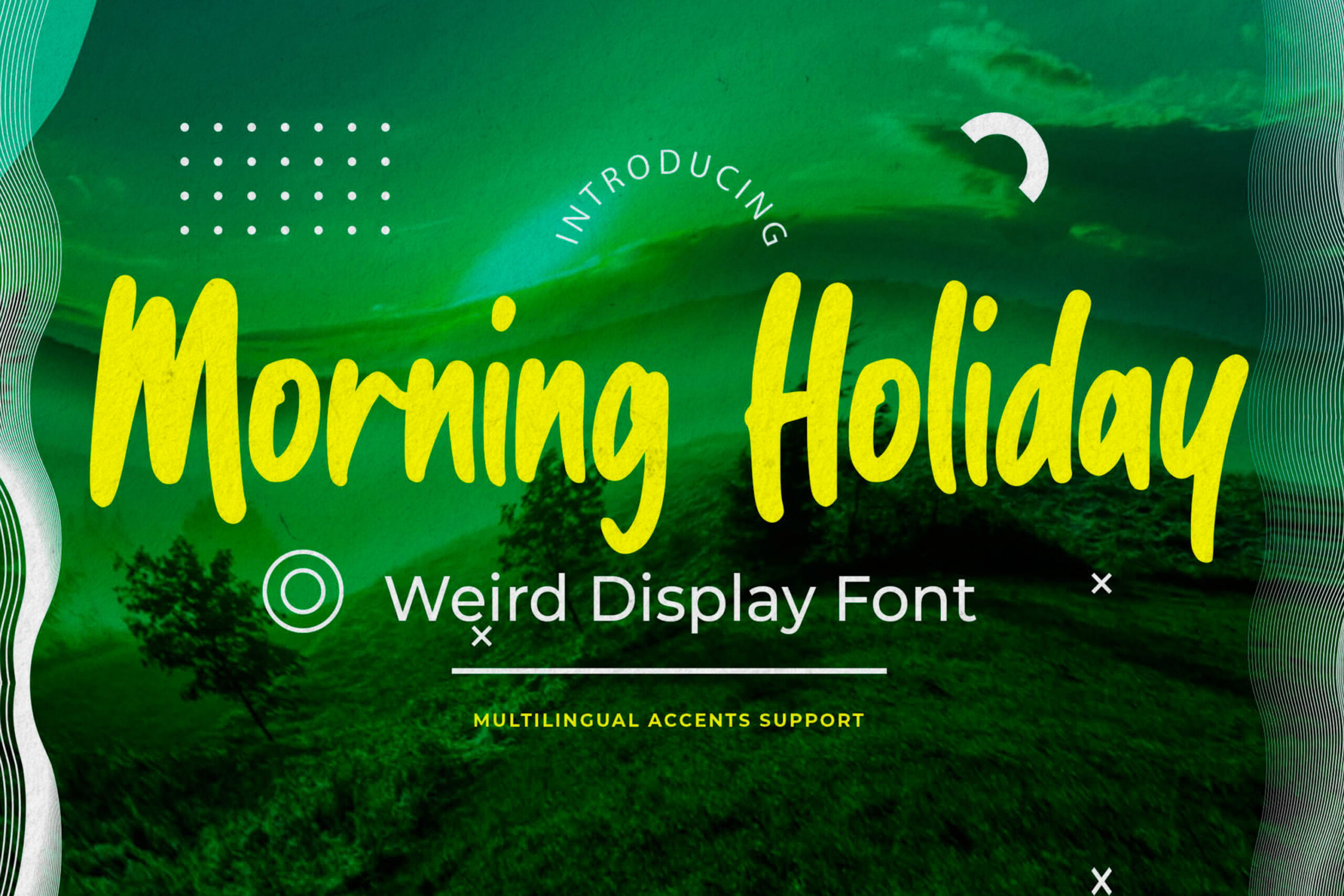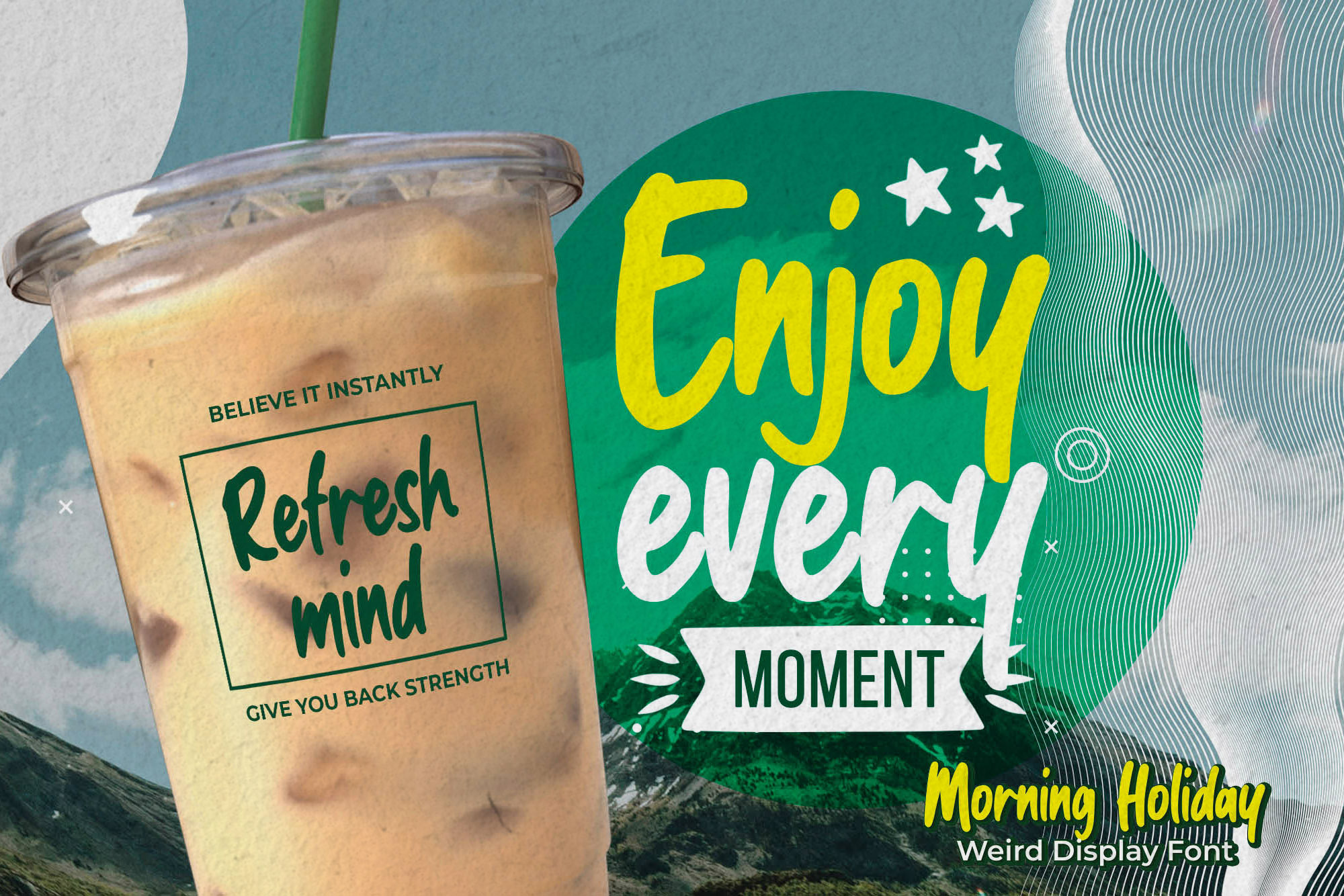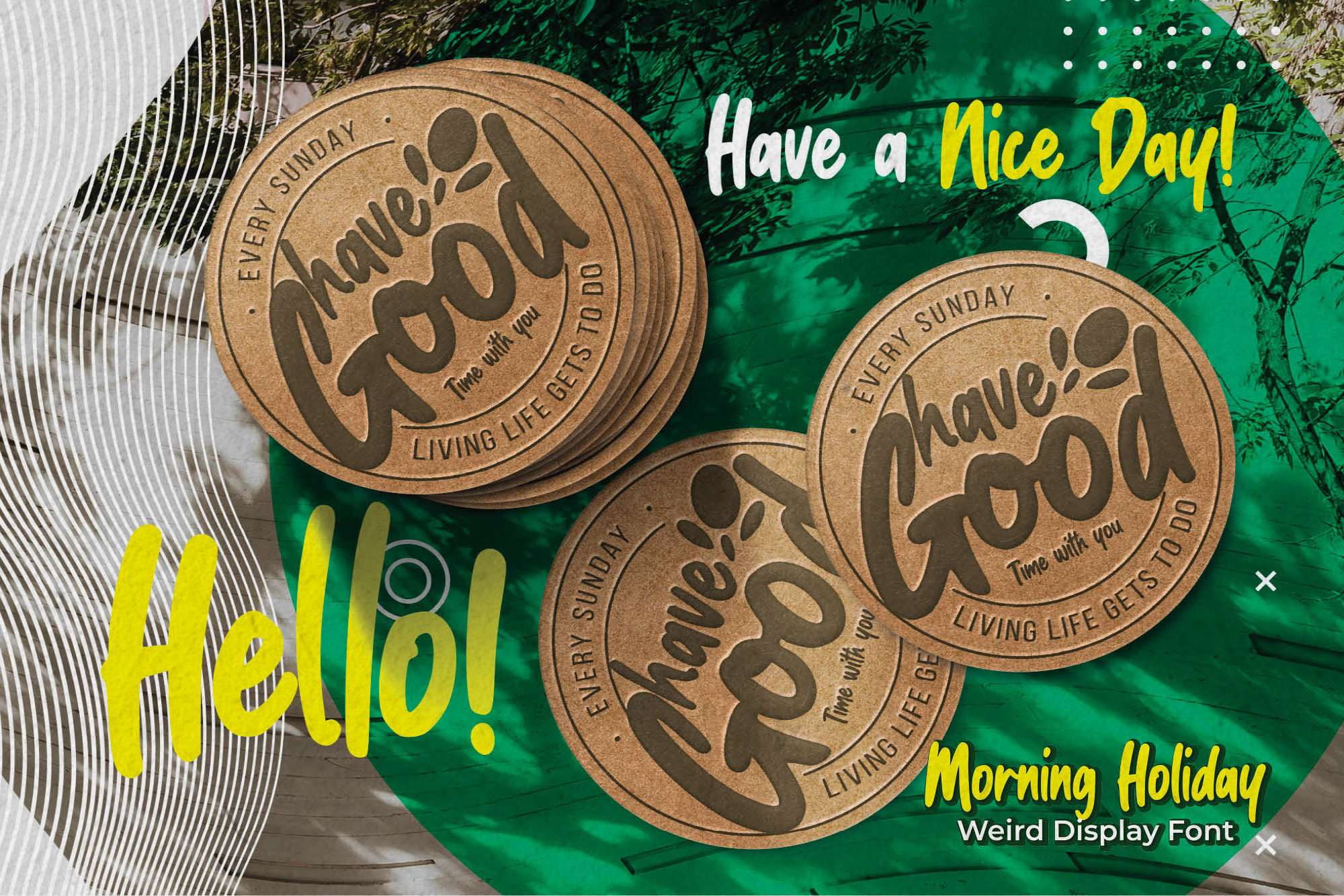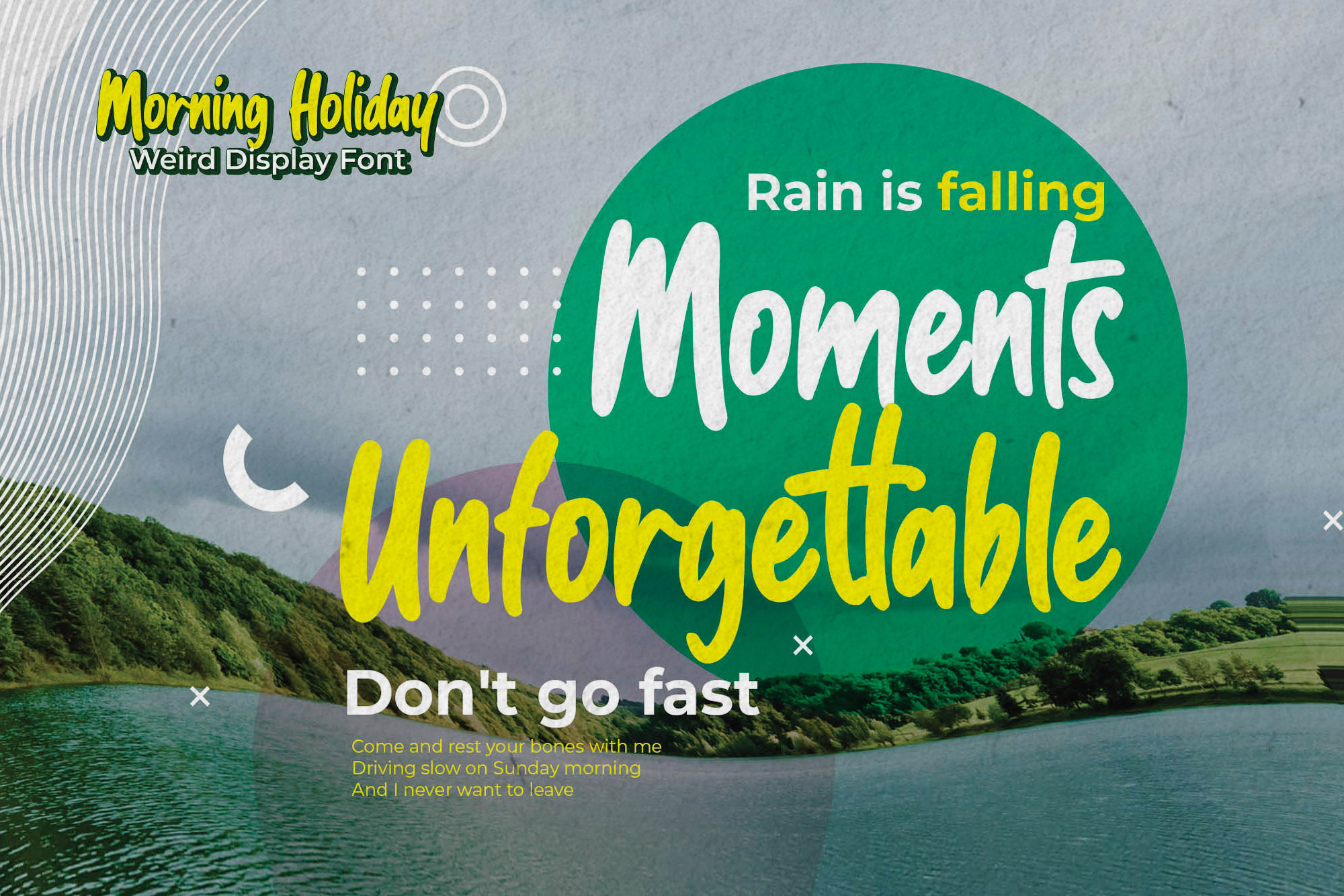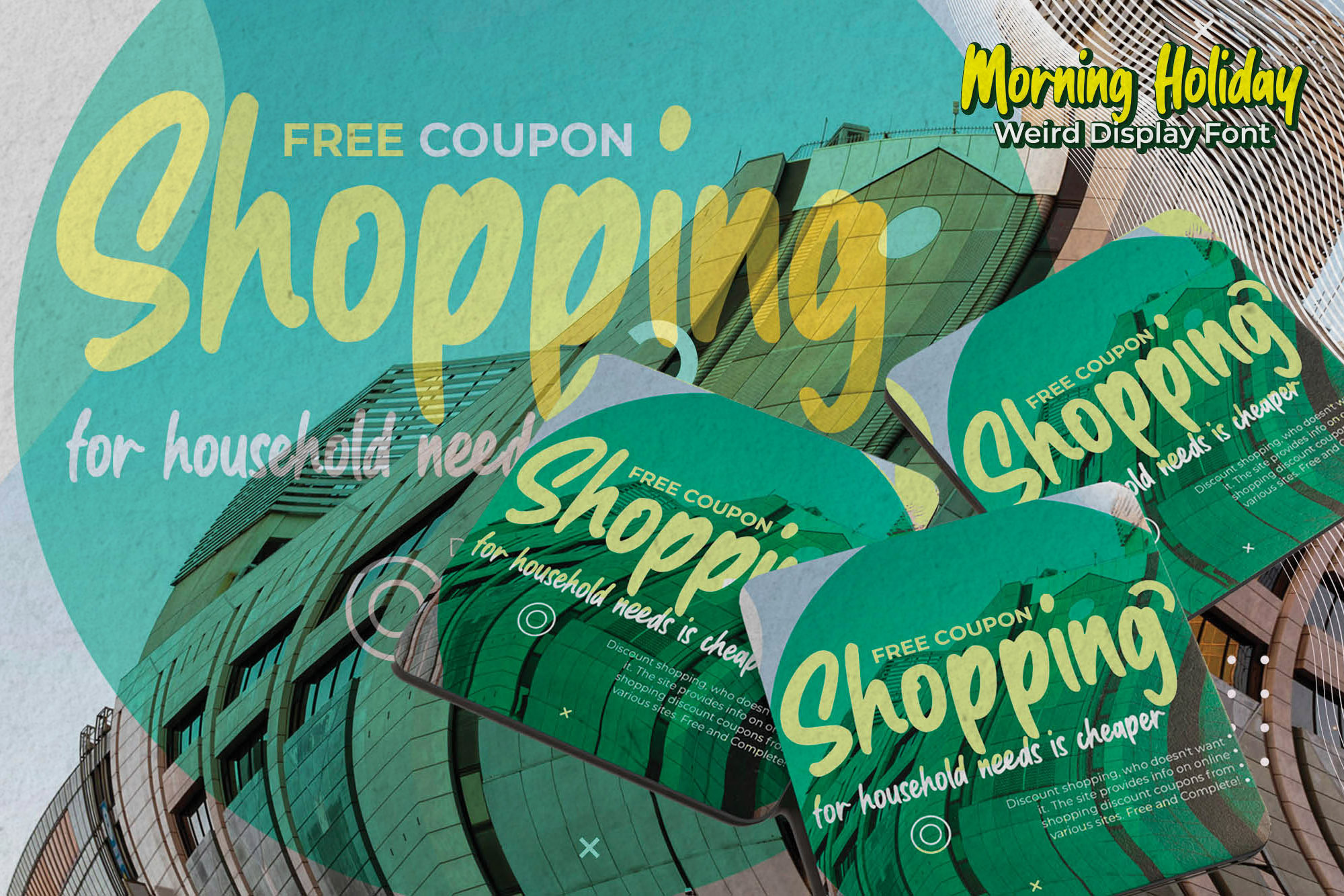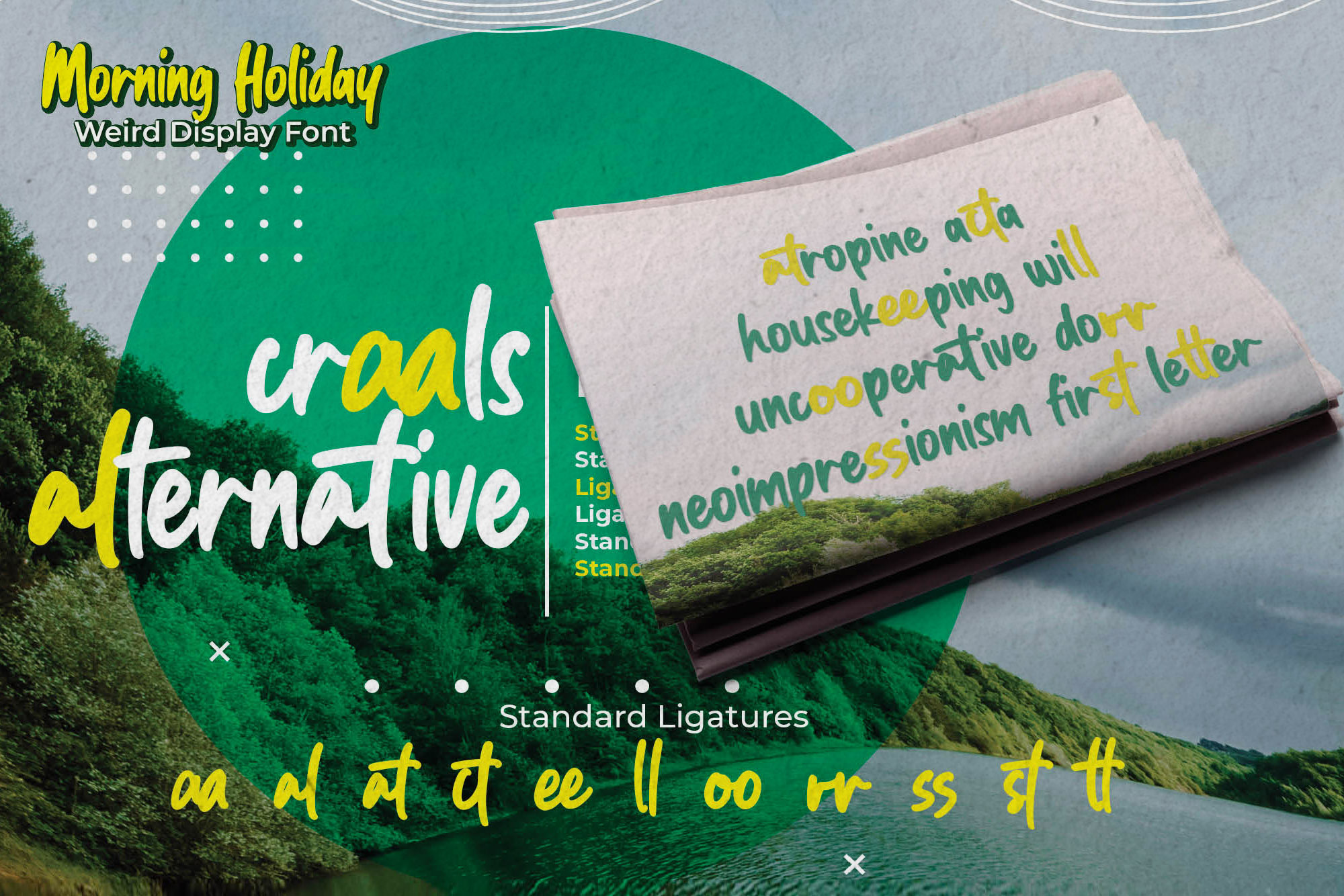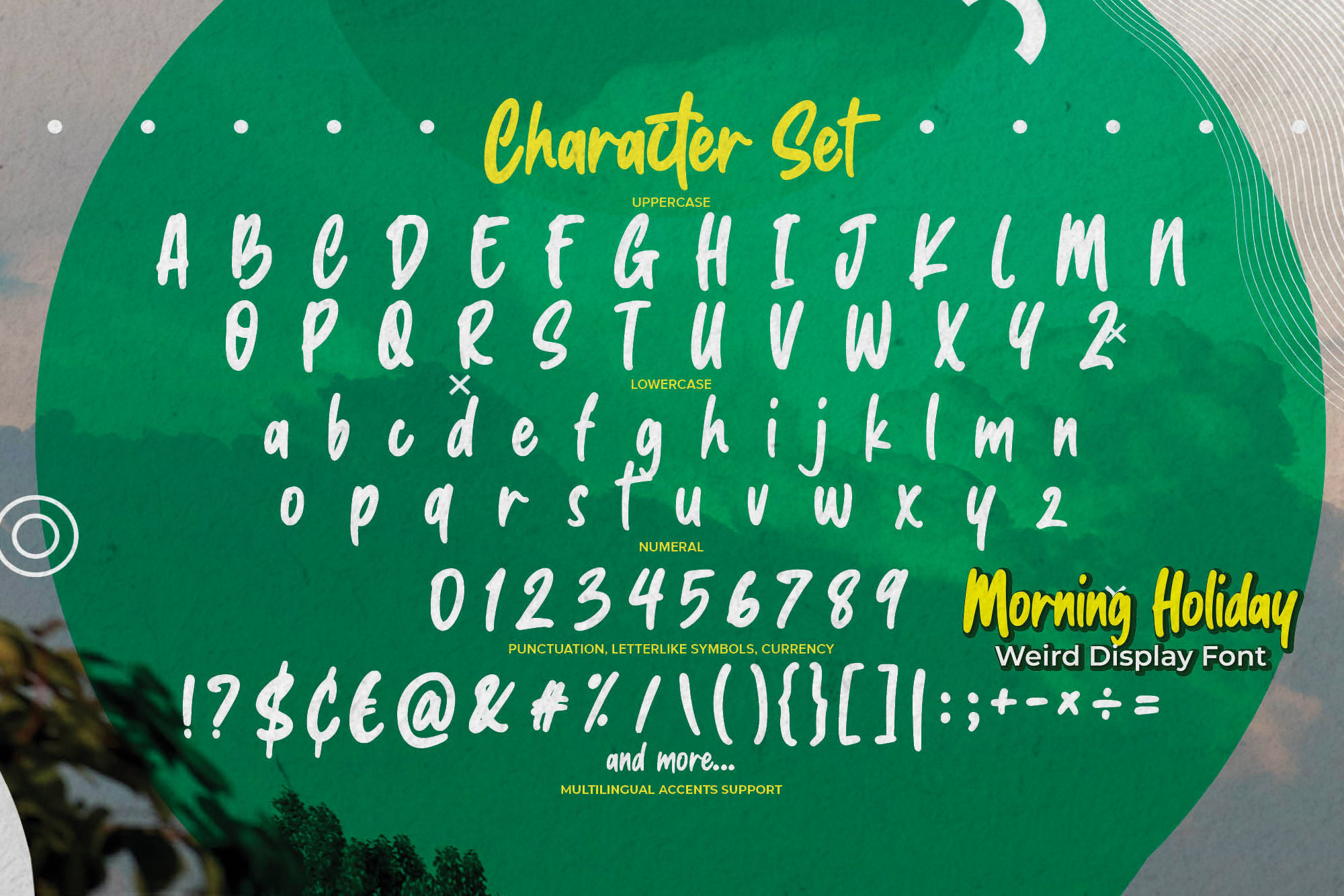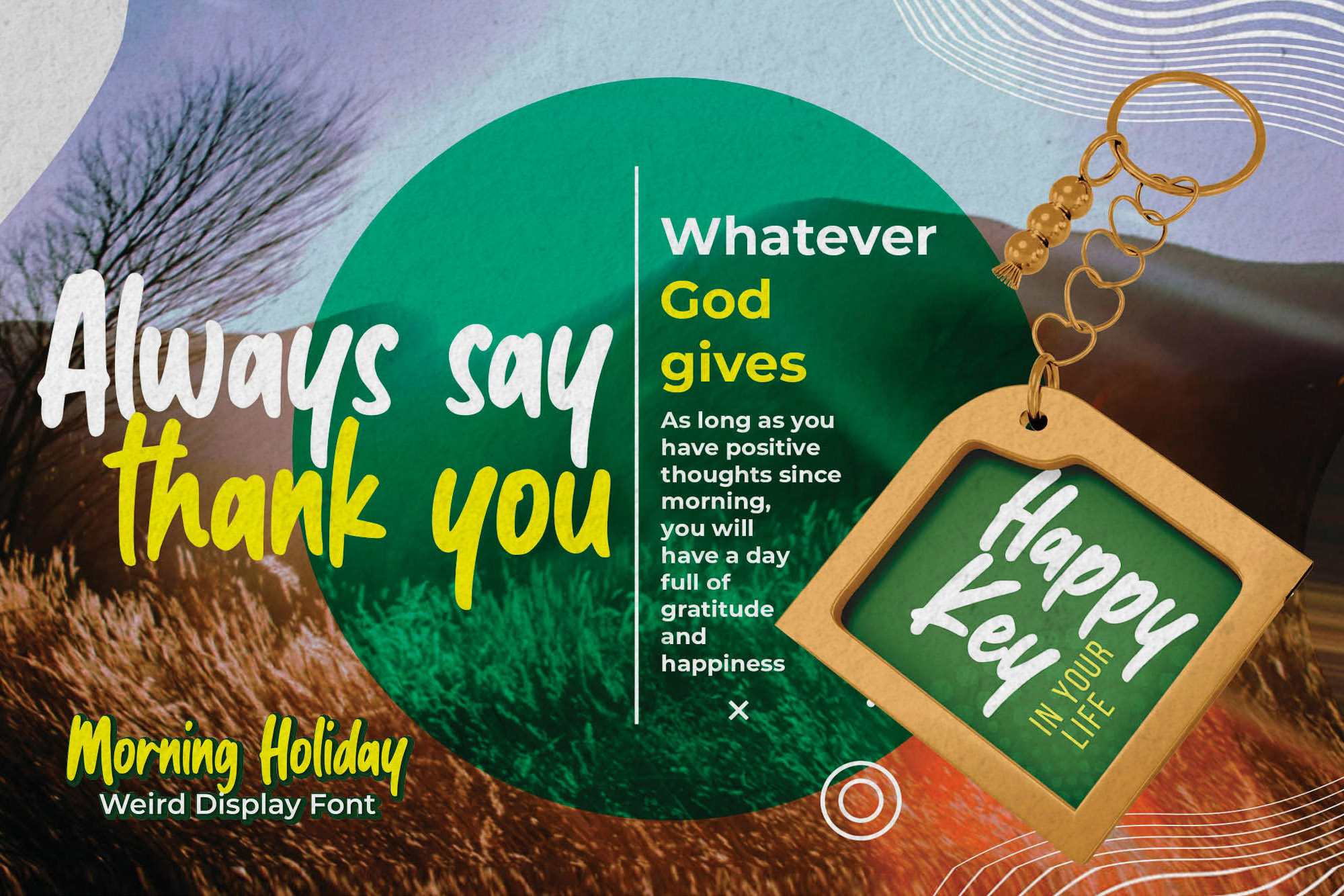
Morning Holiday – Weird Display Font, modern style and dramatic movement that is written casually and quickly.
The best for labels, poster, project designs look modern, authentic and elegant . It’s perfect for labels, quotes, posters, DIY projects, branding, packaging, greeting cards, websites, photography overlays, signs, scrapbooking, tags and so much more! That is why Morning Holiday has a textured, and authentic characteristic more natural look. You can activate Ligatures glyphs OpenType panel.